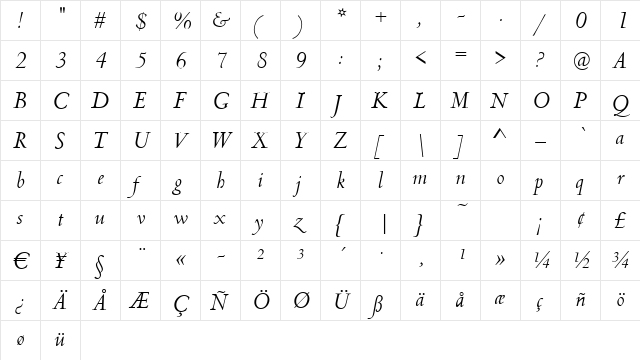
Cambridge Italic
Design Context for Cambridge Typeface
Cambridge offers clean, dependable letterforms without strong stylistic allegiance, making it a practical choice for designers who need flexibility. The dynamic lean of this cut emphasises speed and emphasis in any layout.
Pro Tip: Try Cambridge for annotation and caption copy alongside an upright companion — the contrast in angle creates a dynamic but ordered typographic system.